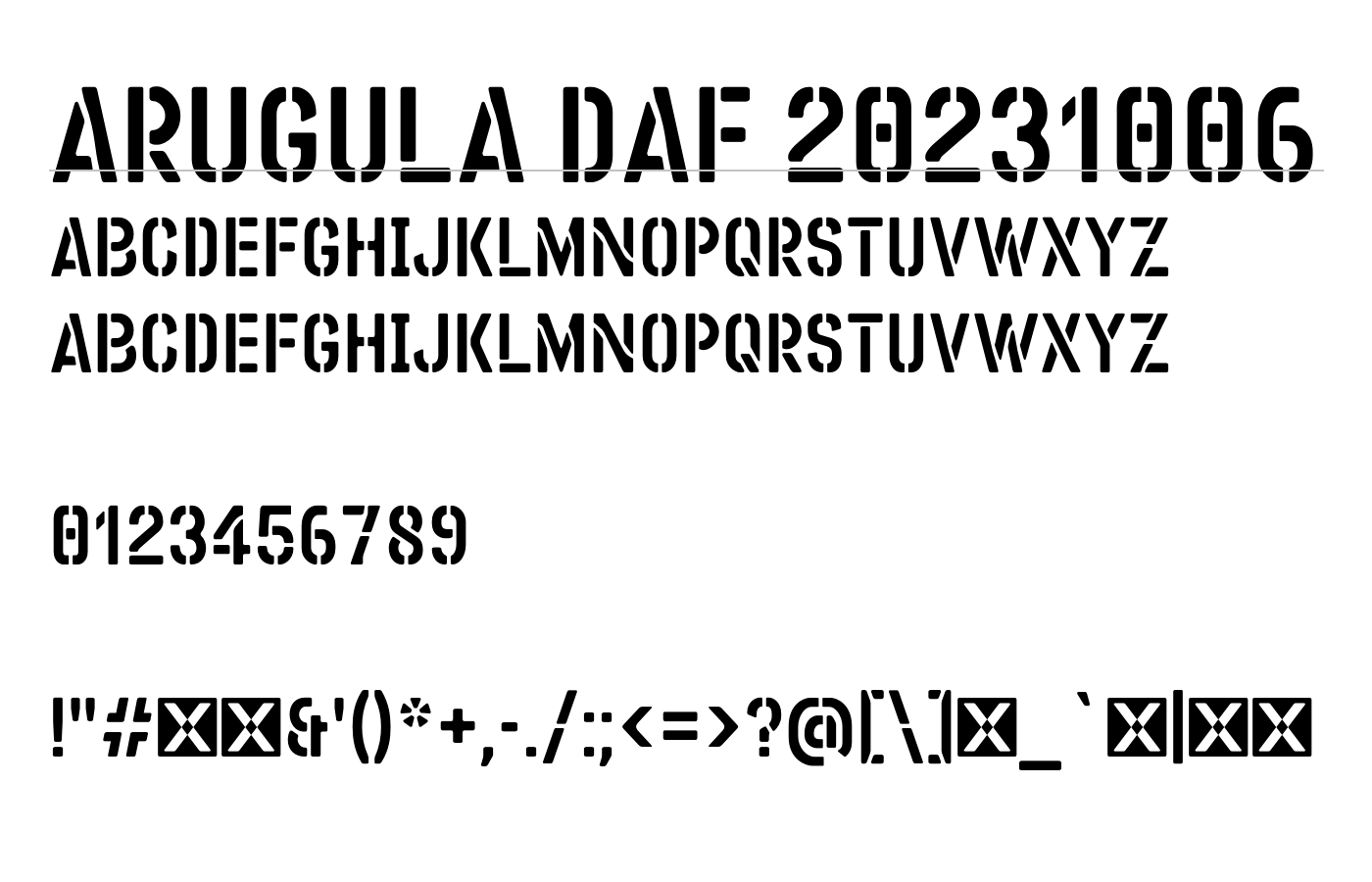
Arugula DAF 20231006 is a bold, stencil-style sans serif font characterized by its strong, geometric shapes and clear cut-out sections that evoke an industrial, utilitarian feel. With its rigid structure and high contrast between solid and negative spaces, this font works well for attention-grabbing headlines, packaging, and branding where a modern, edgy, and technical vibe is desired. It’s ideal for projects seeking a commanding presence with a touch of rugged sophistication.
Arugula DAF 20231006 Font
About Arugula DAF 20231006 Font